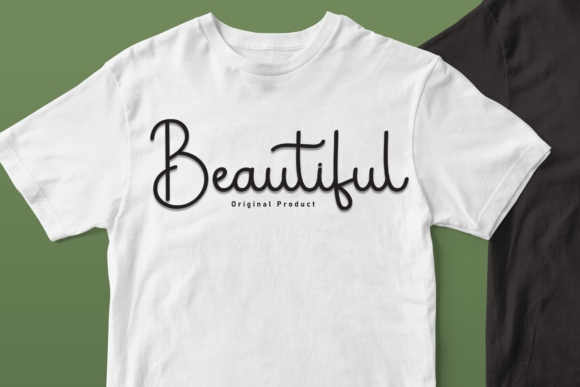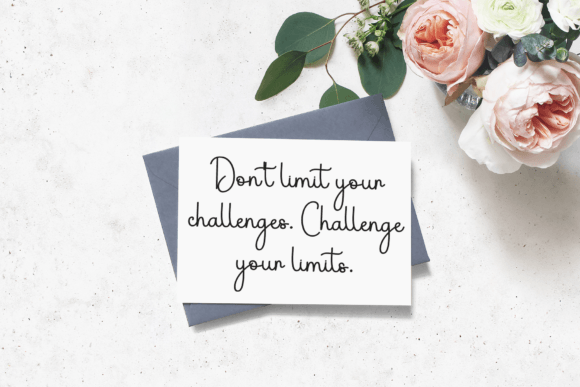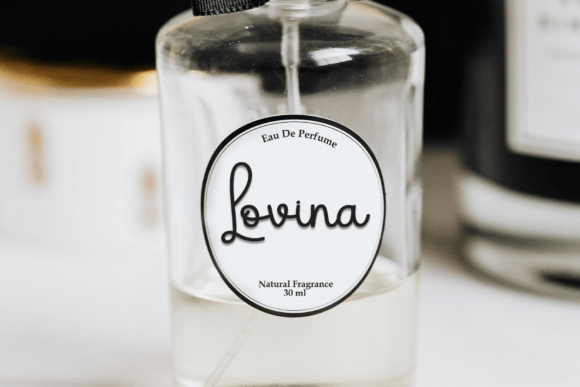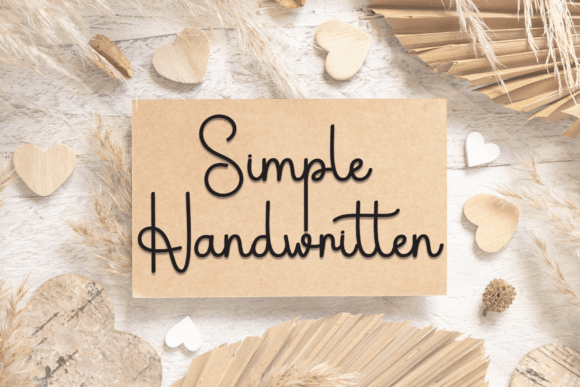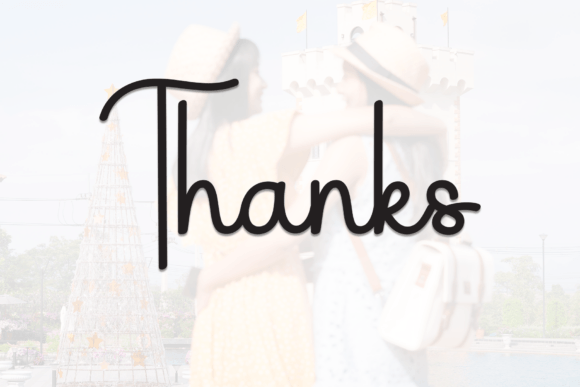
Unwrapping the Magic of Handwritten Charm
As a designer, have you ever been stuck trying to convey the perfect sentiment in a card or invitation, only to feel like something’s missing? The right font can make all the difference, transporting your message from bland to grand. For those special moments when you want to add a touch of whimsy and warmth, we’re excited to introduce the Holidays Font – a charming handwritten display typeface that’s sure to delight.
This delightful font is more than just a pretty face; it’s a valuable tool for designers looking to add a dash of personality to their projects. Whether you’re crafting wedding invitations, greeting cards, or any other design that needs a friendly touch, the Holidays Font is the perfect blend of elegance and playfulness. Its uniquely endearing style is sure to captivate attention and instill warmth, making it a must-have addition to any designer’s toolkit.
Holidays Font Key Features
- Unique Characteristics: The Holidays Font features a unique blend of traditional and modern elements, with intricate details and ornaments that evoke a sense of nostalgia and festivity.
- Font Styles: Holidays Font includes 6 different font styles, including Regular, Italic, Bold, Bold Italic, Outline, and Fill.
Holidays Font Review
Holidays Font is a festive and playful typeface perfect for capturing the spirit of the holiday season. ✨ I love the creative way the designer has combined different fonts to create a unique and eye-catching effect. The font is ideal for use in Christmas card designs, gift wrapping, and other holiday-themed projects.
- ✨ Unique blend of fonts creates a festive atmosphere
- ✨ Perfect for holiday-themed projects and designs
- ✨ Good for use in social media posts, greeting cards, and gift tags
- ⚠️ May not be suitable for formal or professional designs
- ⚠️ Limited character set and language support
- ⚠️ May require manual adjustment to fit certain layouts or designs
Overall, Holidays Font is a fun and creative typeface that adds a touch of holiday cheer to any design. While it may have some limitations, it’s perfect for those looking to create festive and playful designs. If you’re looking for a fun and unique font to use in your holiday projects, Holidays Font is definitely worth checking out.
The Holidays Font is ideal for:
- Creating festive holiday designs and graphics.
- Adding a seasonal touch to your marketing materials.
- Designing holiday-themed invitations and party decor.
For the best results, use the Holidays Font in combination with bold and italic styles to create a festive and playful look. Experiment with different font